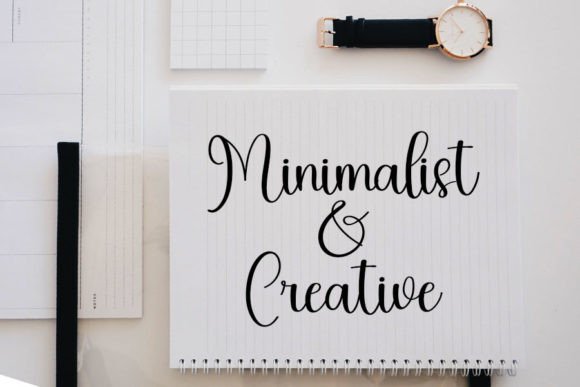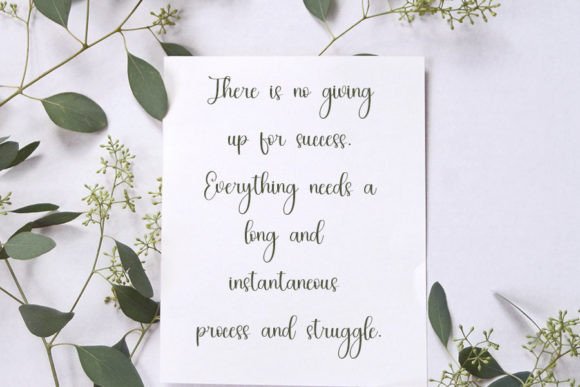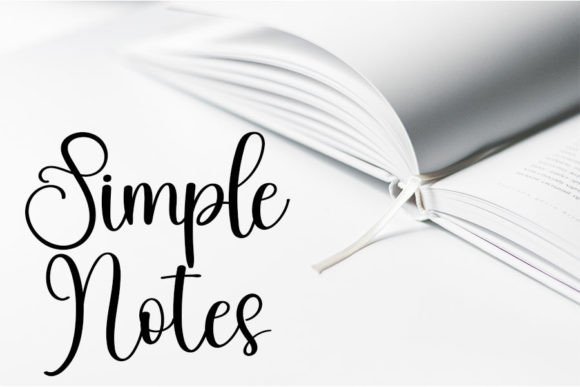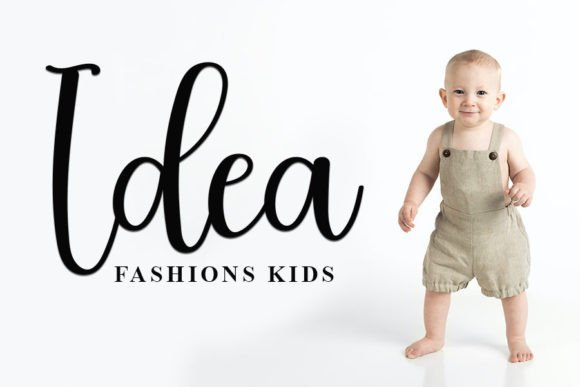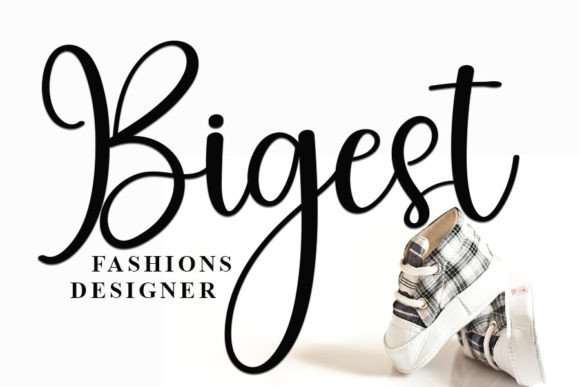
Babies Font: A Friendly Handwritten Font to Elevate Your Creative Projects
Are you a designer, crafter, or DIY enthusiast looking for a font that can add a personal touch to your creative projects? Look no further than Babies Font, a friendly handwritten font designed to become a true favorite in your font library. With its unique and charming style, Babies Font is perfect for making your projects come alive and stand out from the crowd.
What is Babies Font?
Babies Font is a carefully crafted handwritten font that exudes warmth and friendliness. Its design is inspired by the imperfections and quirks of handwriting, making it feel approachable and relatable. The font is perfect for a wide range of creative projects, from digital designs and social media graphics to craft projects and DIY signage.
Key Features of Babies Font
- Unique and Charming Style: Babies Font has a distinct and captivating style that sets it apart from other fonts. Its handwritten feel and imperfections make it feel authentic and engaging.
- Highly Versatile: This font is suitable for a wide range of creative projects, from digital designs and social media graphics to craft projects and DIY signage.
- Easy to Read: Despite its handwritten nature, Babies Font is remarkably legible, making it perfect for use in both digital and print materials.
Why Choose Babies Font?
There are many fonts available, but Babies Font stands out from the rest due to its unique combination of style, versatility, and readability. Here are some reasons why designers and crafters love Babies Font:
- Adds a Personal Touch: Babies Font adds a personal and human touch to your designs, making them feel more approachable and relatable.
- Perfect for Branding and Marketing: The font’s friendly and approachable style makes it perfect for use in branding and marketing materials, such as logos, social media graphics, and advertisements.
- Ideal for Crafting and DIY Projects: Babies Font is a great choice for crafters and DIY enthusiasts who want to add a personal touch to their projects, such as handmade cards, invitations, and signage.
Tips for Using Babies Font
To get the most out of Babies Font, here are some tips for using it in your creative projects:
- Experiment with Different Sizes and Colors: Babies Font looks great in various sizes and colors, so don’t be afraid to experiment and find the perfect combination for your project.
- Pair it with Other Fonts: Babies Font pairs well with other fonts, so try combining it with a sans-serif font for added contrast and visual interest.
- Use it in Digital and Print Materials: Babies Font is suitable for use in both digital and print materials, making it a great addition to your font library.
In conclusion, Babies Font is a friendly handwritten font that is sure to become a true favorite in your font library. Its unique and charming style, versatility, and readability make it perfect for a wide range of creative projects. Whether you’re a designer, crafter, or DIY enthusiast, Babies Font is a great choice for adding a personal touch to your projects. So why wait? Download Babies Font today and start making your creative projects come alive!